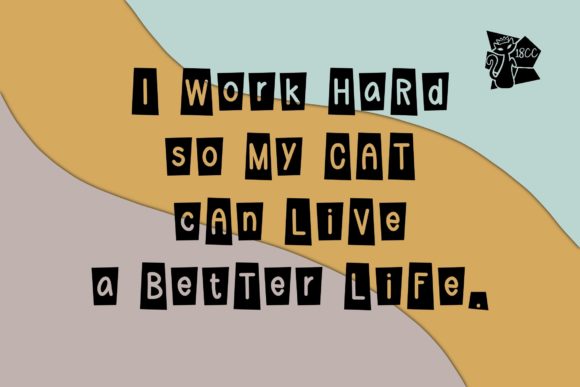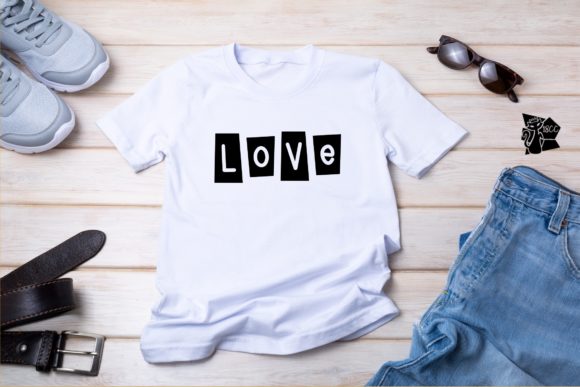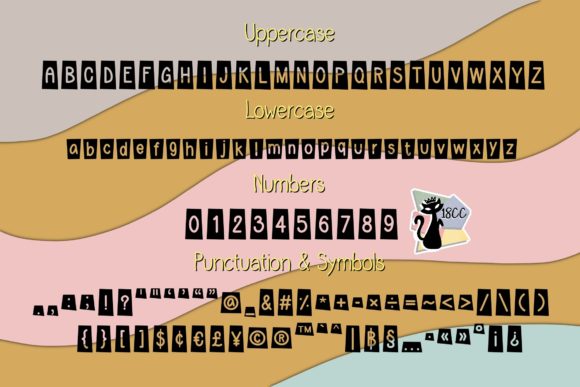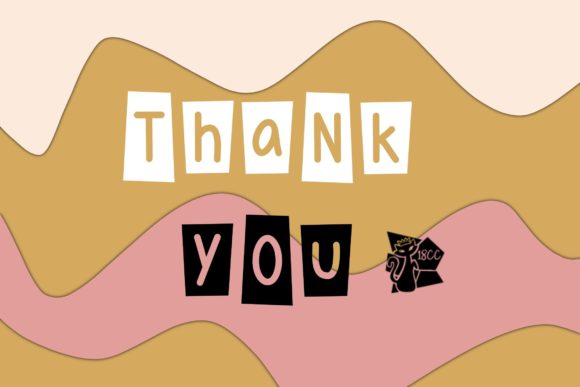
Introducing BlackBox Font: The Ultimate Decorative Font for Designers and Crafters
Are you tired of using the same old fonts for your designs and crafts? Look no further! BlackBox Font is a cool and fun looking decorative font that’s perfect for adding a touch of personality to your projects. Whether you’re using it for crafts, digital design, presentations, or making greeting cards, this font has the potential to become your favorite go-to font, no matter the occasion!
What Makes BlackBox Font So Special?
BlackBox Font is a unique and eye-catching font that’s sure to make your designs stand out. Its decorative style is perfect for adding a touch of whimsy and fun to your projects. The font is highly versatile, making it suitable for a wide range of applications, from digital design to crafting and DIY projects.
Uses for BlackBox Font
So, what can you use BlackBox Font for? The possibilities are endless! Here are just a few ideas to get you started:
- Crafts: Use BlackBox Font to add a personal touch to your handmade crafts, such as scrapbooking, card making, and journaling.
- Digital Design: Add a touch of personality to your digital designs, such as social media graphics, blog posts, and presentations.
- Greeting Cards: Create unique and eye-catching greeting cards for special occasions, such as birthdays, holidays, and weddings.
- Presentations: Use BlackBox Font to add visual interest to your presentations and make them more engaging.
Why Designers and Crafters Love BlackBox Font
So, why do designers and crafters love BlackBox Font? Here are just a few reasons:
- Unique Style: BlackBox Font has a unique and eye-catching style that’s sure to make your designs stand out.
- Highly Versatile: The font is highly versatile, making it suitable for a wide range of applications.
- Easy to Use: BlackBox Font is easy to use and can be easily integrated into your designs.
- Fun and Playful: The font has a fun and playful vibe that’s perfect for adding a touch of personality to your designs.
Tips for Using BlackBox Font
Here are a few tips for using BlackBox Font:
- Experiment with Different Sizes: Experiment with different font sizes to add visual interest to your designs.
- Pair with Other Fonts: Pair BlackBox Font with other fonts to create a unique and eye-catching combination.
- Use for Headings: Use BlackBox Font for headings and titles to add a touch of personality to your designs.
- Have Fun: Most importantly, have fun and be creative with BlackBox Font!
In conclusion, BlackBox Font is a cool and fun looking decorative font that’s perfect for designers and crafters. Its unique style, versatility, and ease of use make it a great addition to any design or craft project. Whether you’re using it for crafts, digital design, presentations, or making greeting cards, BlackBox Font is sure to become your go-to font. So why not give it a try and see the amazing things you can create?